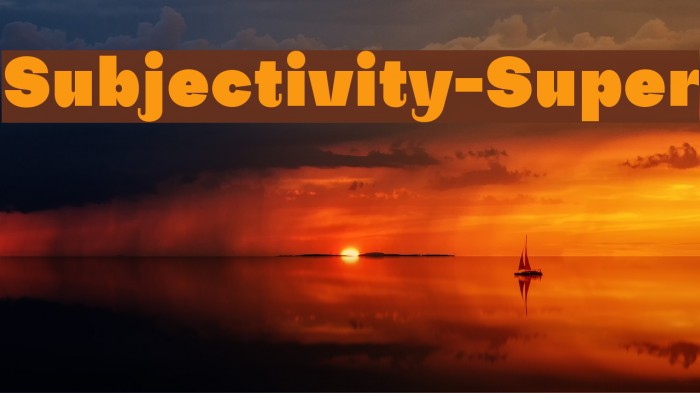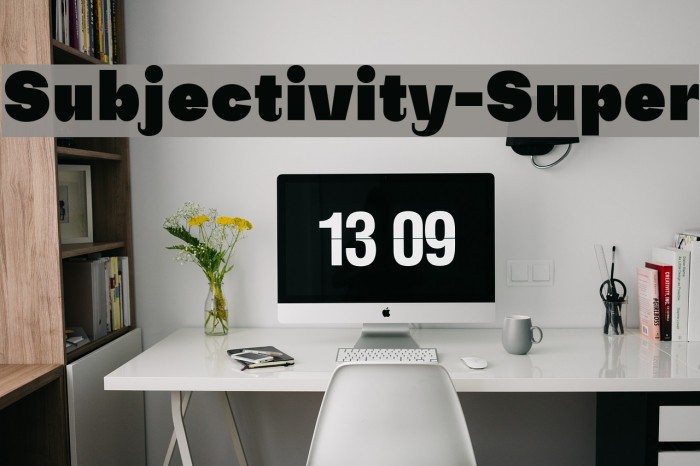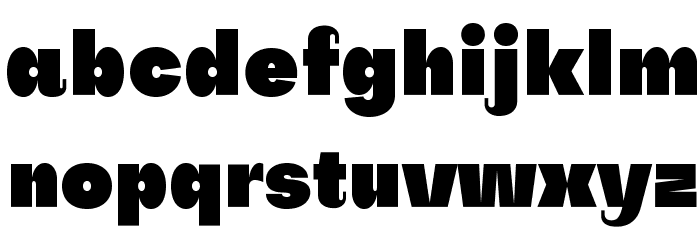
Subjectivity-Super Font
This bold and impactful font features thick, uniform strokes that create a strong visual presence. The characters are designed with a geometric precision, offering a modern and assertive look. The uppercase letters are particularly striking, with a solid and confident appearance. The lowercase letters maintain the boldness while providing a slightly softer edge. Numbers and special characters are equally robust, ensuring consistency across all text elements. This font is ideal for making a statement, with its high contrast and wide character spacing enhancing readability and emphasis.
A bold, geometric font with strong visual impact and high contrast.
• Proposed Projects: Ideal for headlines, posters, branding, and any project requiring a bold statement.
• Category: Sans-Serif
• Bold: Yes
• Italic: No
• Weight: Bold
• Width: Normal
• Character Spacing: Wide
• Contrast: High
• Overall Style: Modern
• Use Case: Headlines, Logos, Posters